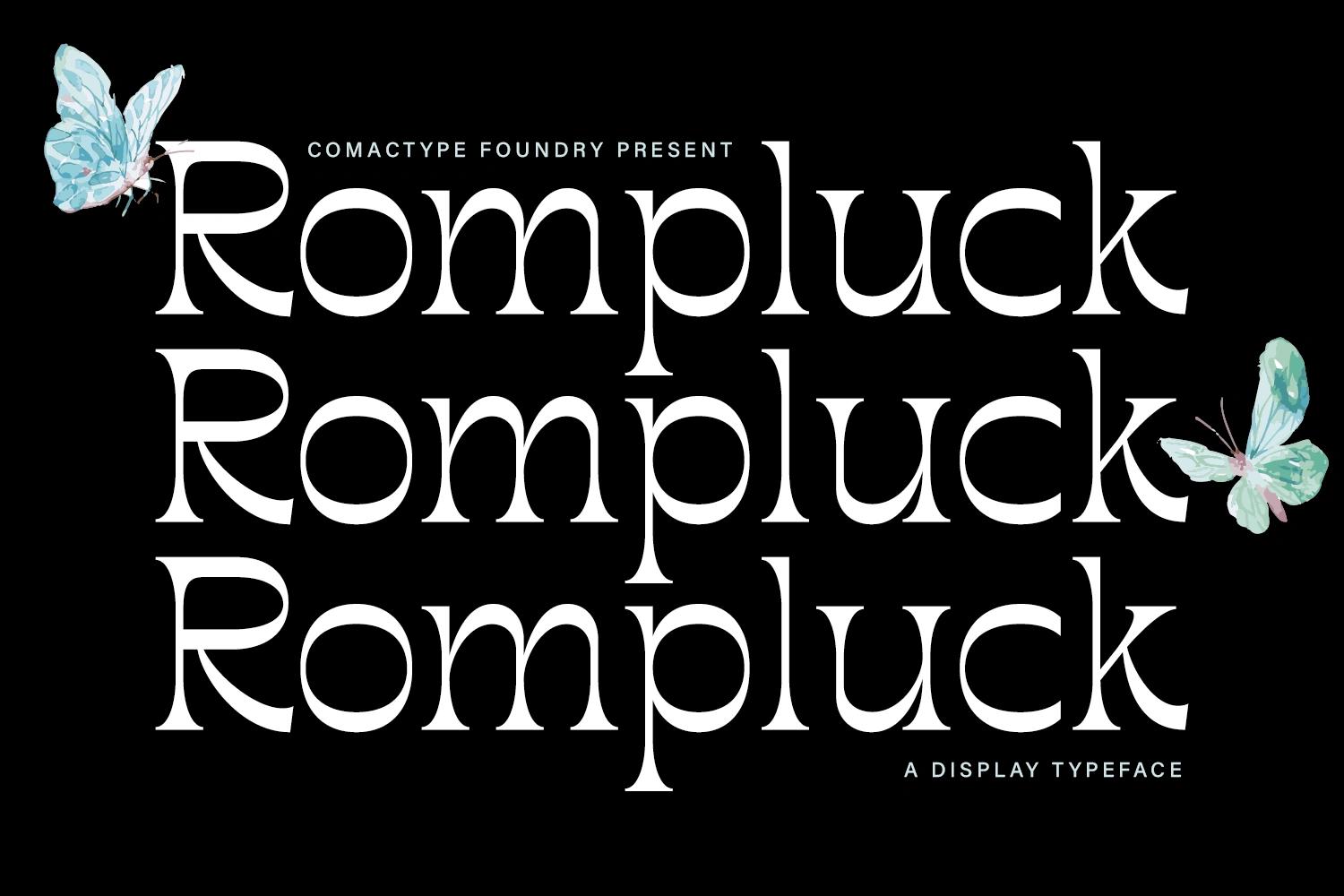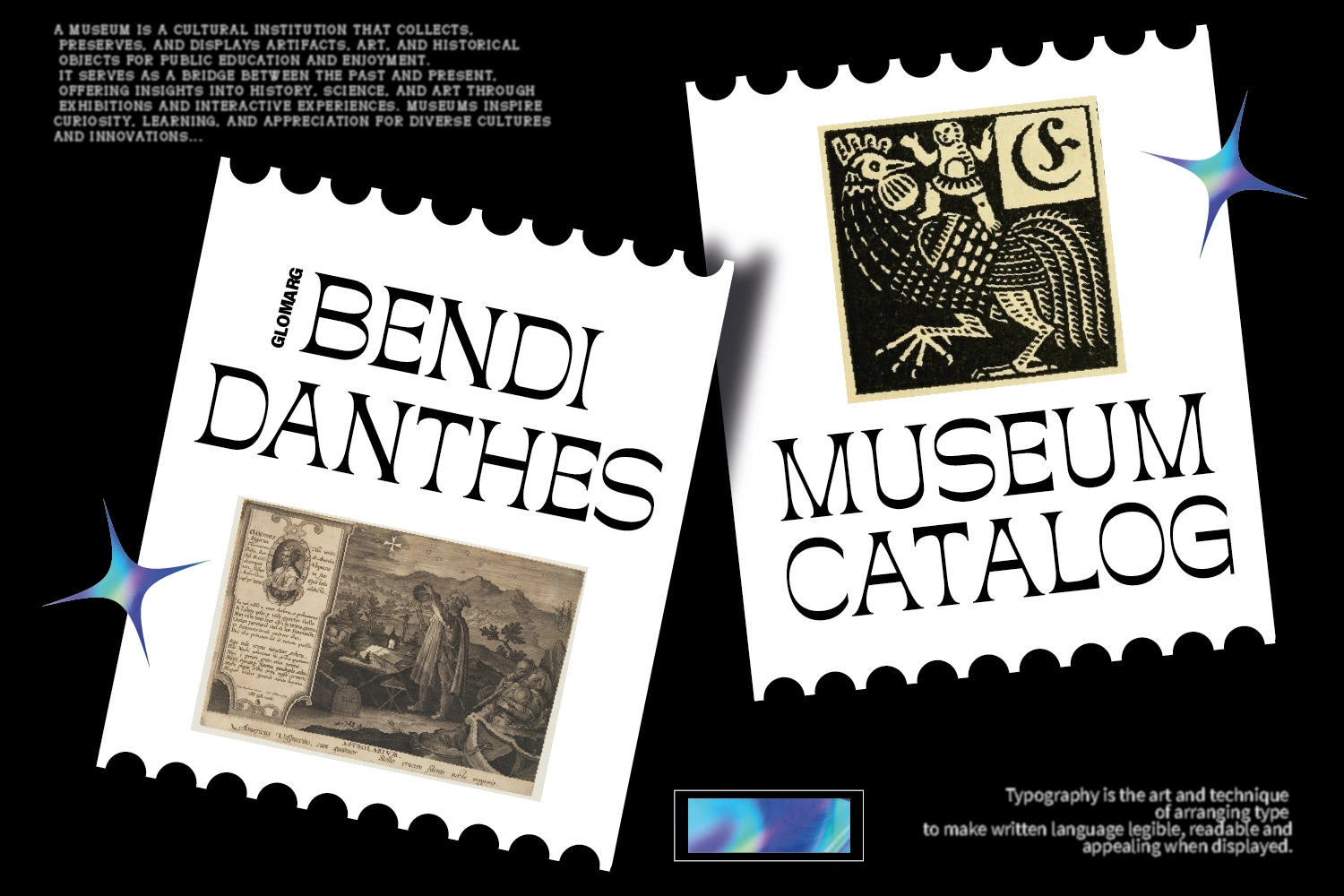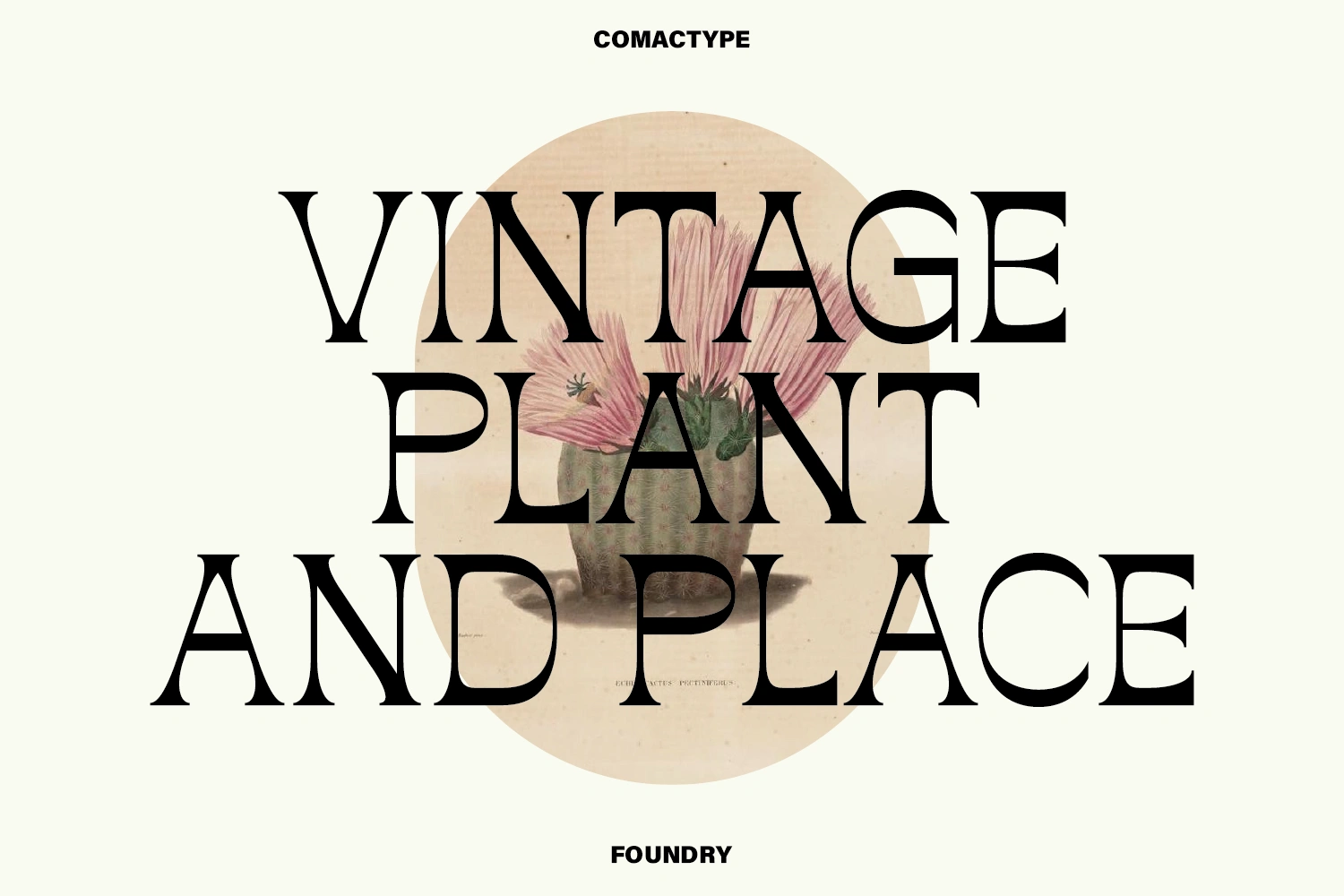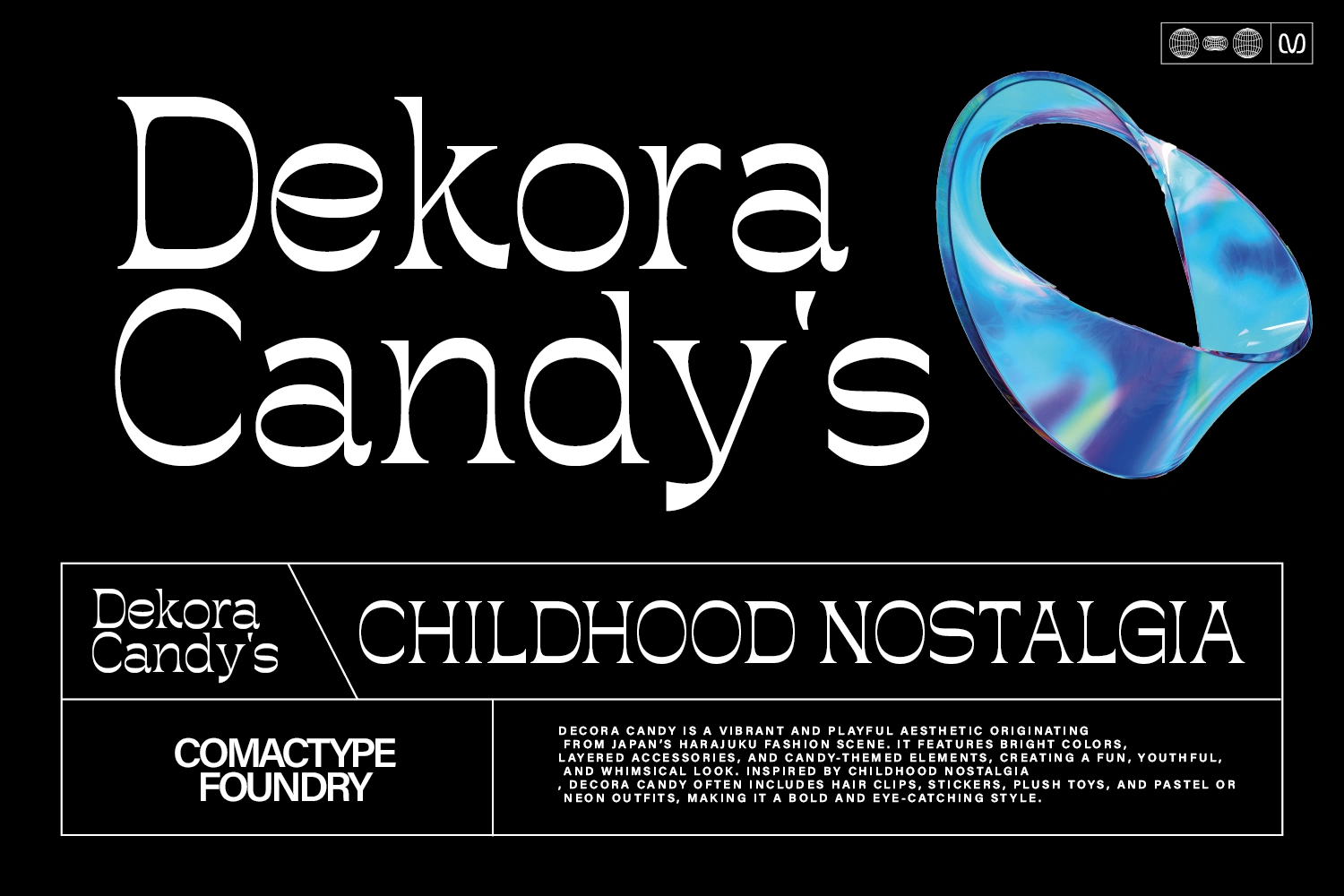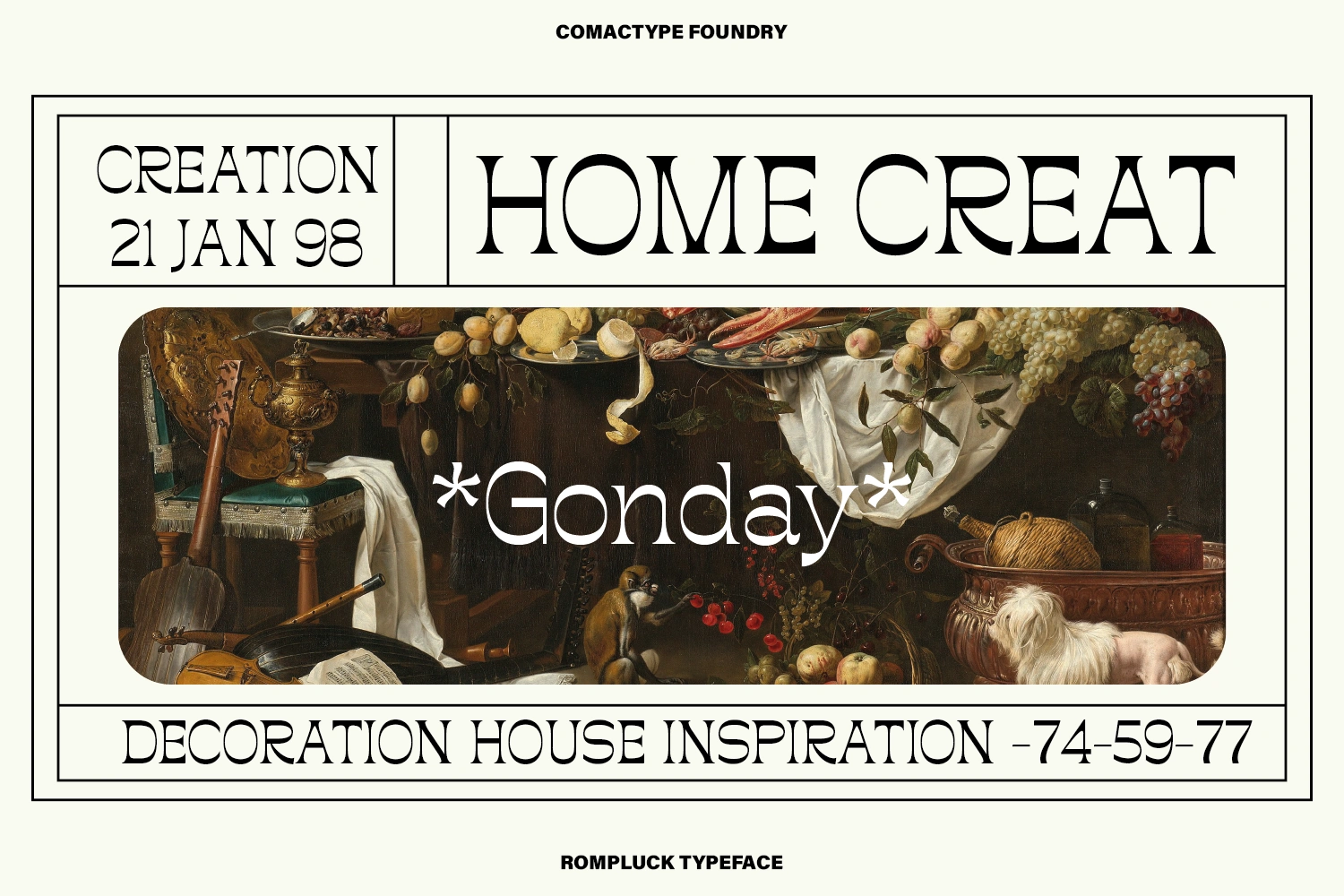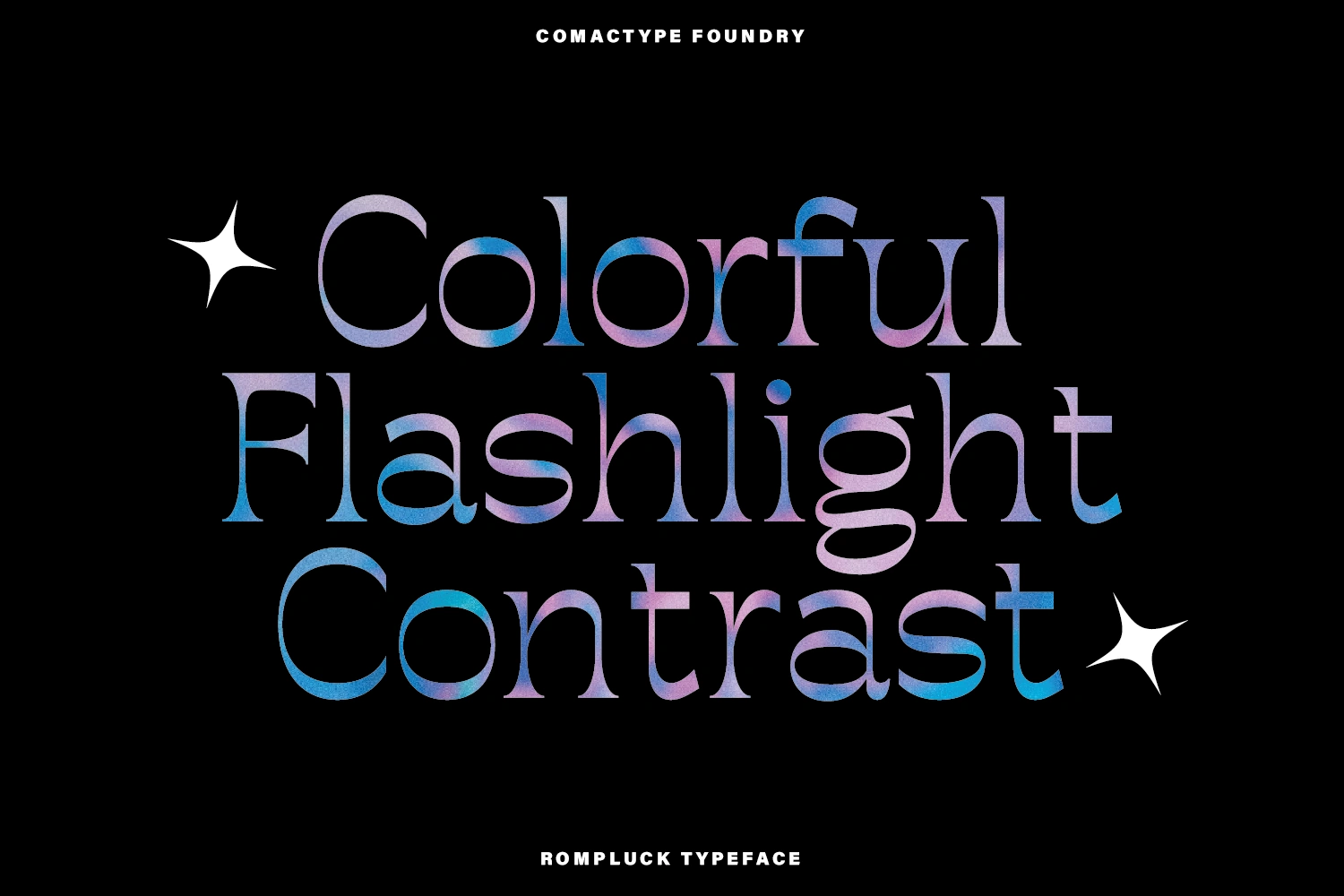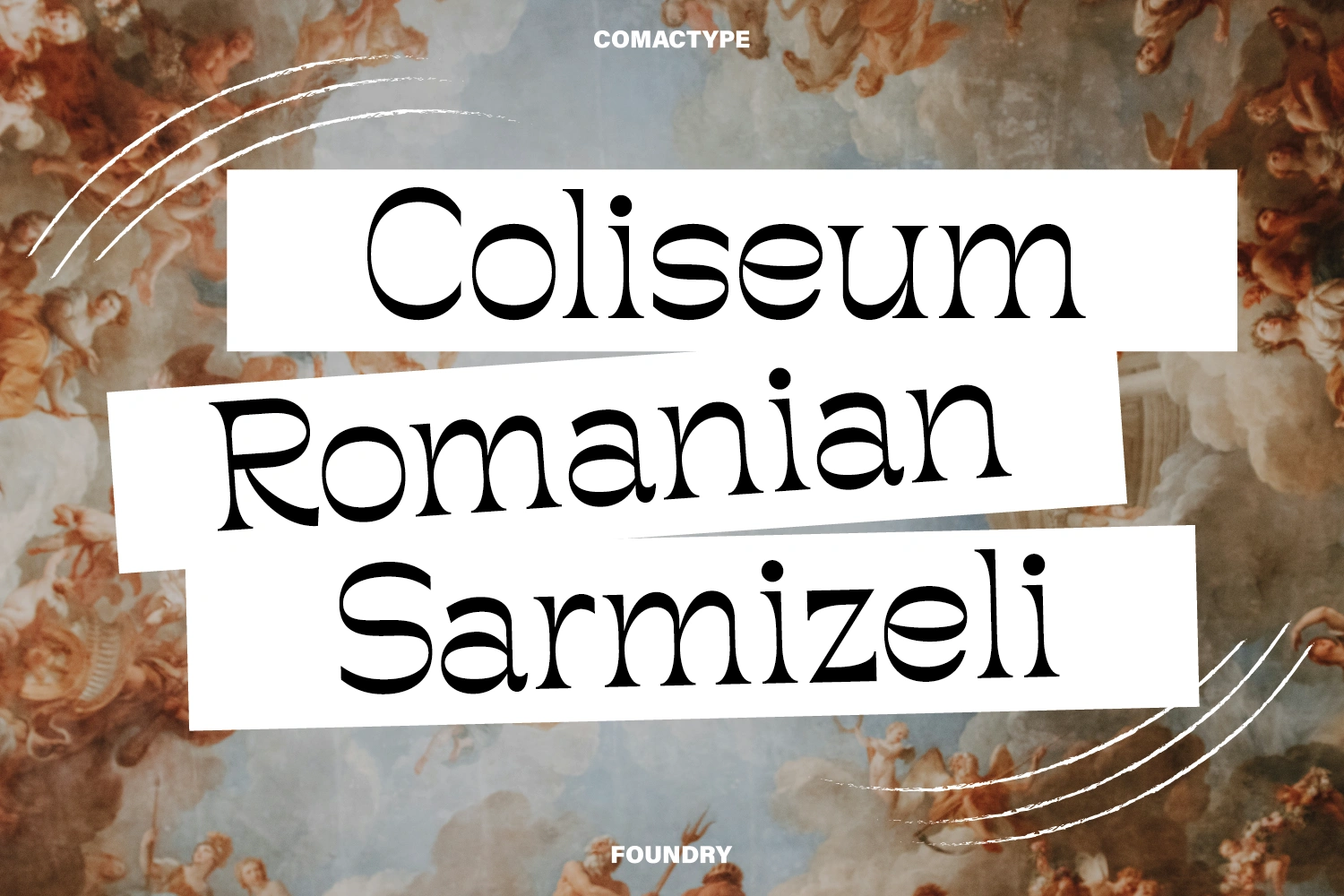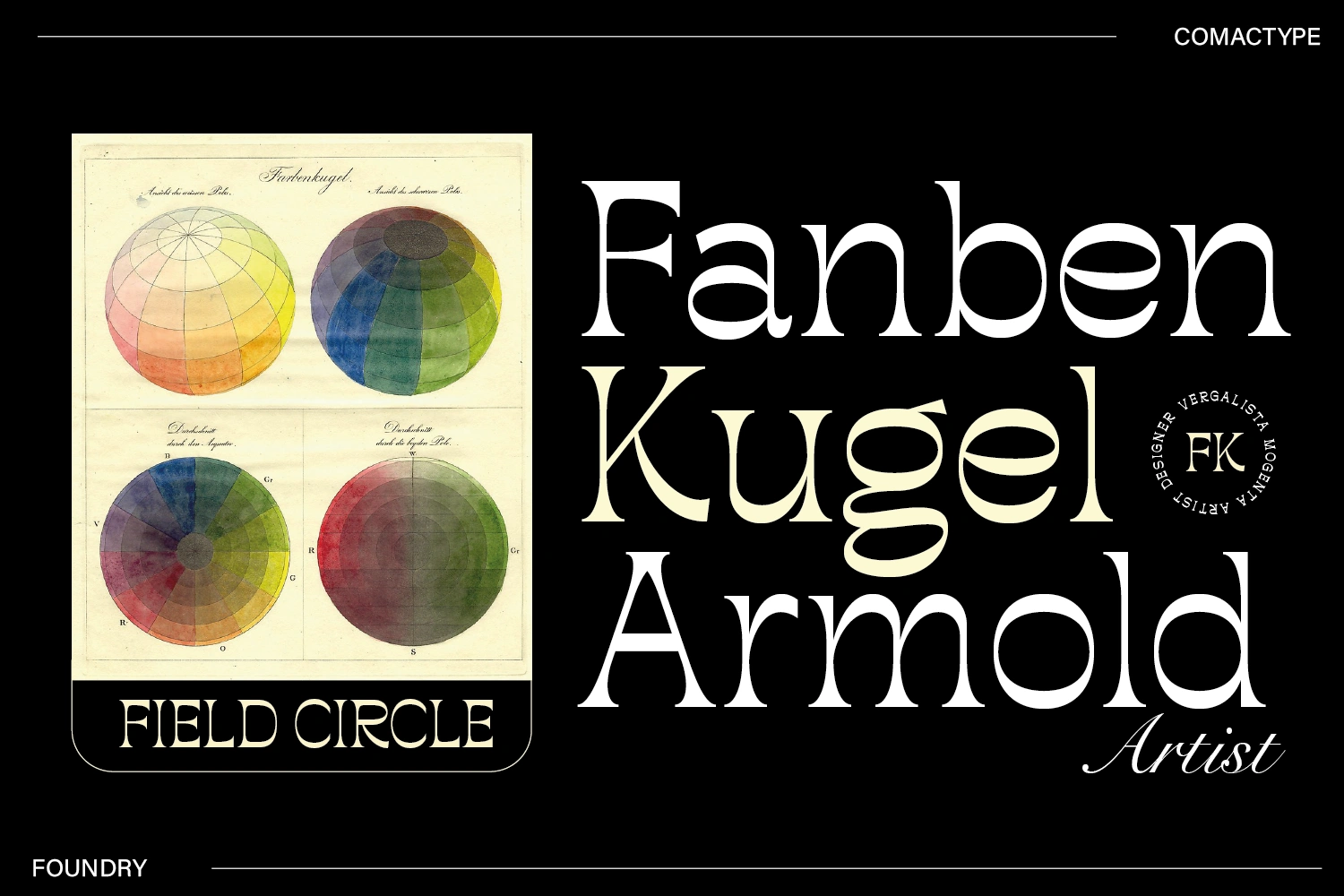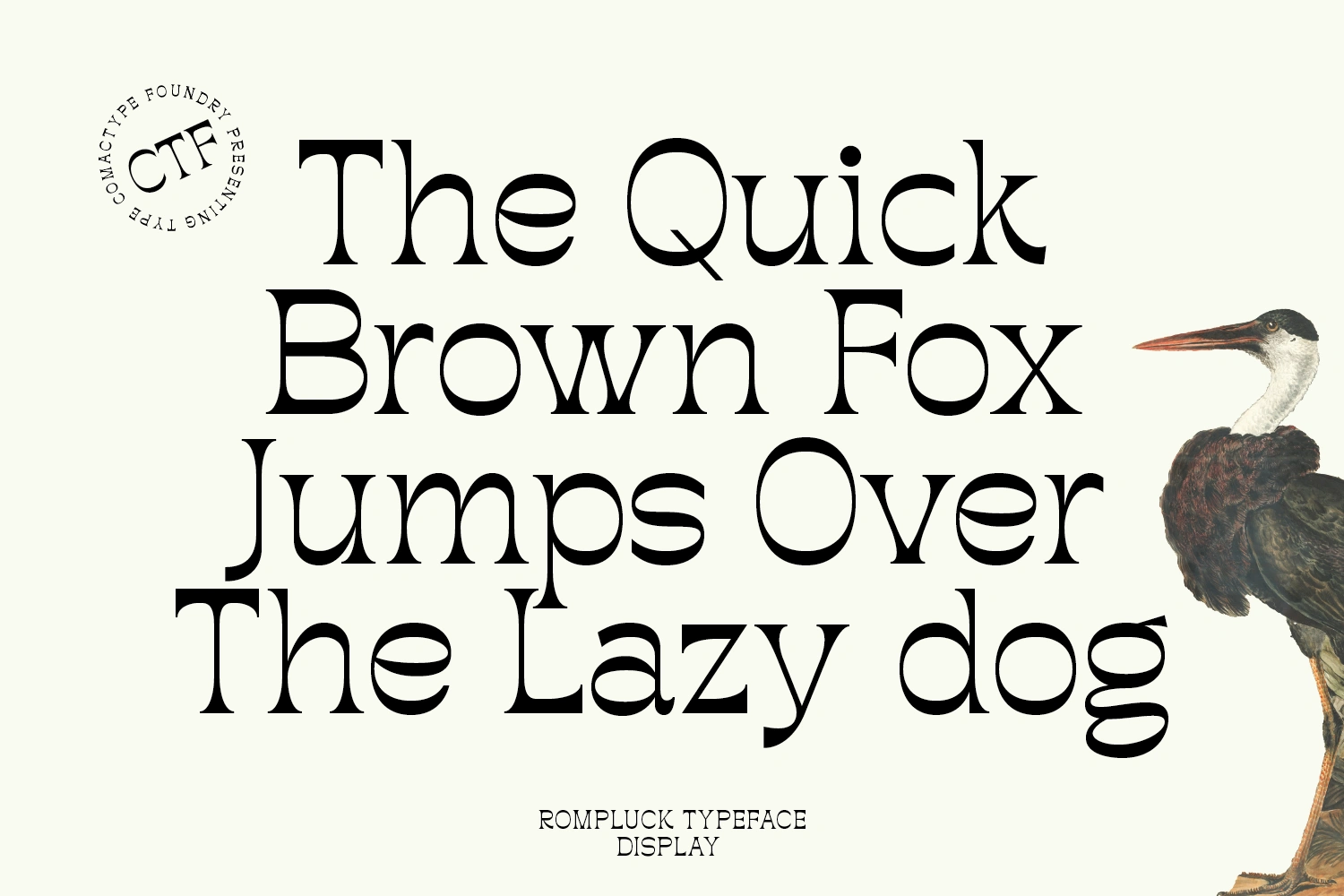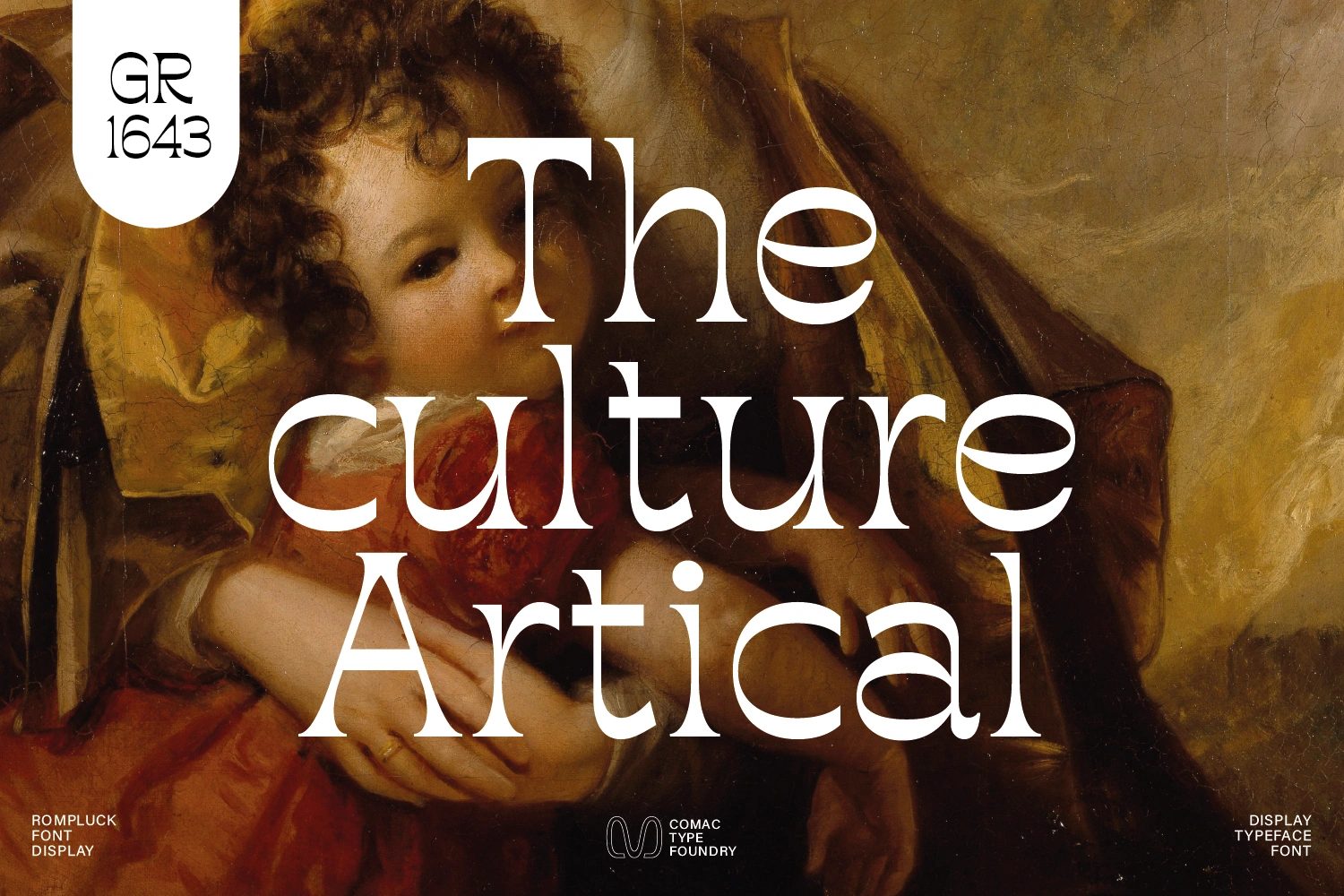
Rumpluck is a display typeface with an elegant and unique serif style. This font blends classic aesthetics with a modern touch through its high contrast between thick and thin strokes, creating a luxurious and dramatic appearance.
Its letterforms feature distinctive characteristics, such as sharp terminals and artistic curves, especially in letters like R, P, L, and K, giving it a dynamic and bold impression.
With well-balanced proportions and refined details, Rumpluck is perfect for branding, editorial design, posters, logos, and product packaging that seek to stand out and exude exclusivity.
The beauty of this font makes it an ideal choice for designers looking for a classic, luxurious, and contemporary typographic style.